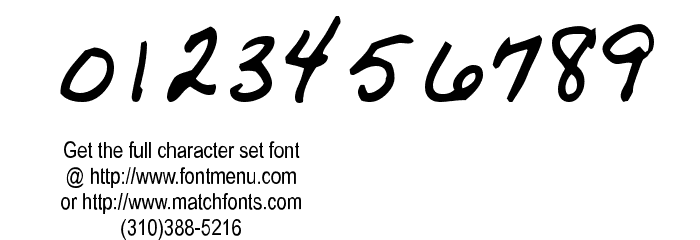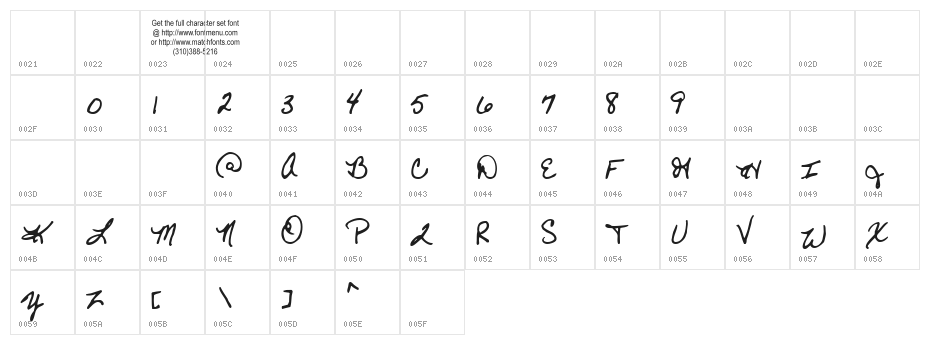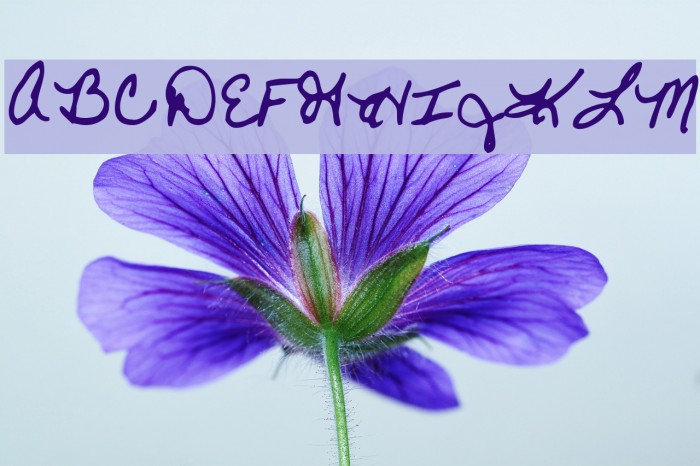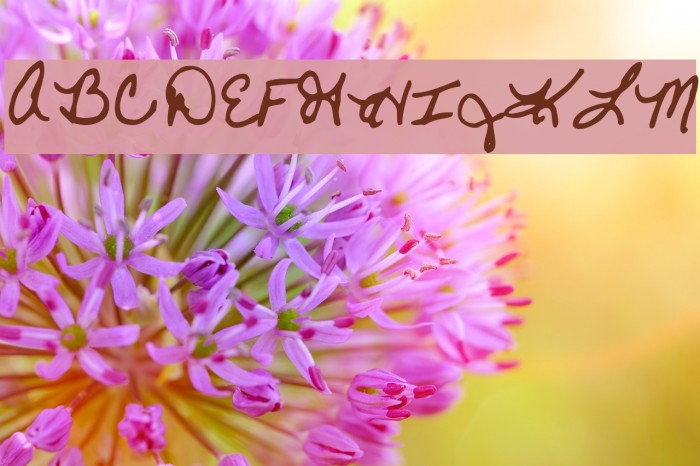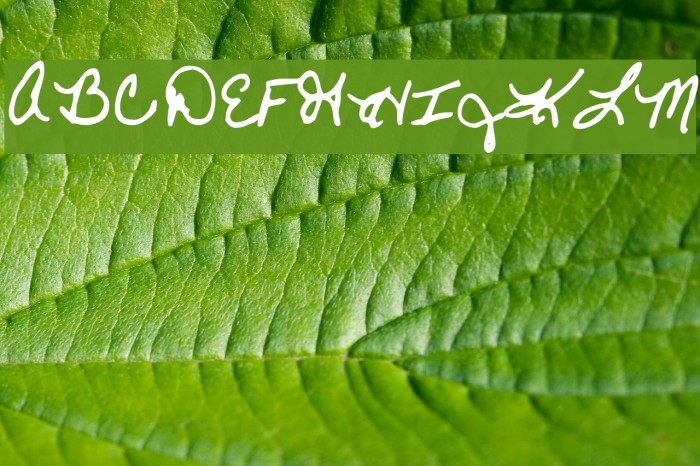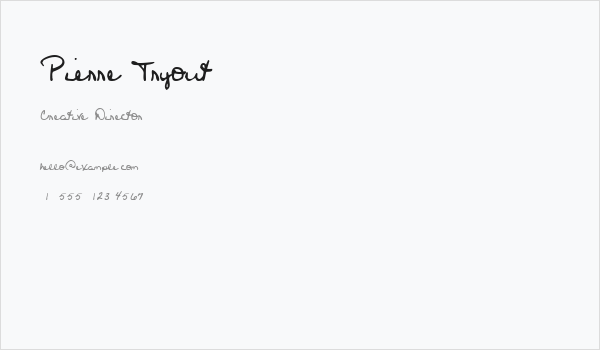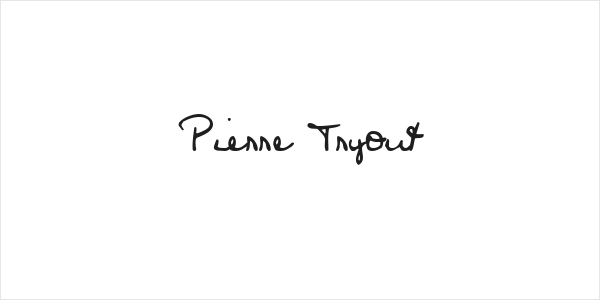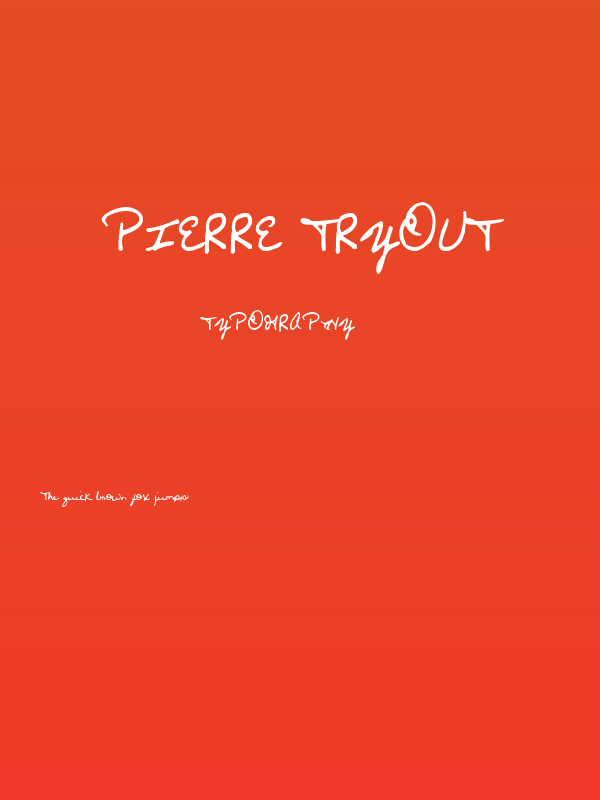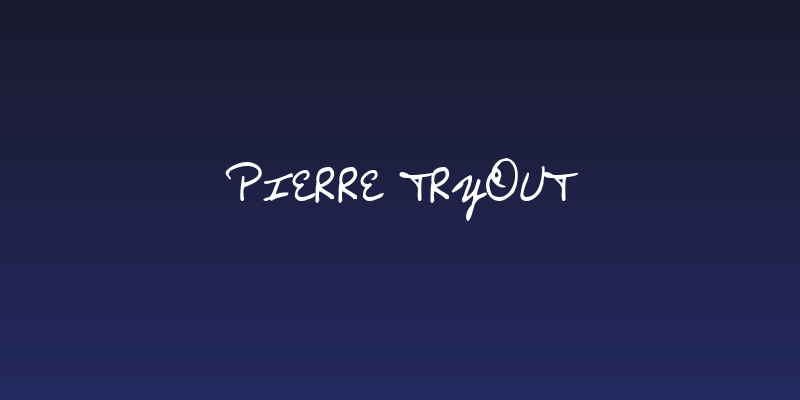
Pierre Tryout Font
Pierre Tryout Description
This font exudes a casual, handwritten style with a playful and dynamic flair. The letters are fluid and connected, mimicking the natural flow of cursive handwriting. Each character has a unique and slightly irregular shape, adding to the authenticity of the handwritten appearance. The strokes vary in thickness, providing a medium contrast that enhances readability while maintaining an informal aesthetic. The overall design is approachable and friendly, making it suitable for projects that require a personal touch. The numbers and special characters are crafted with the same attention to detail, ensuring consistency across all elements.
| Proposed Projects | Ideal for greeting cards, personal invitations, casual branding, and social media graphics. |